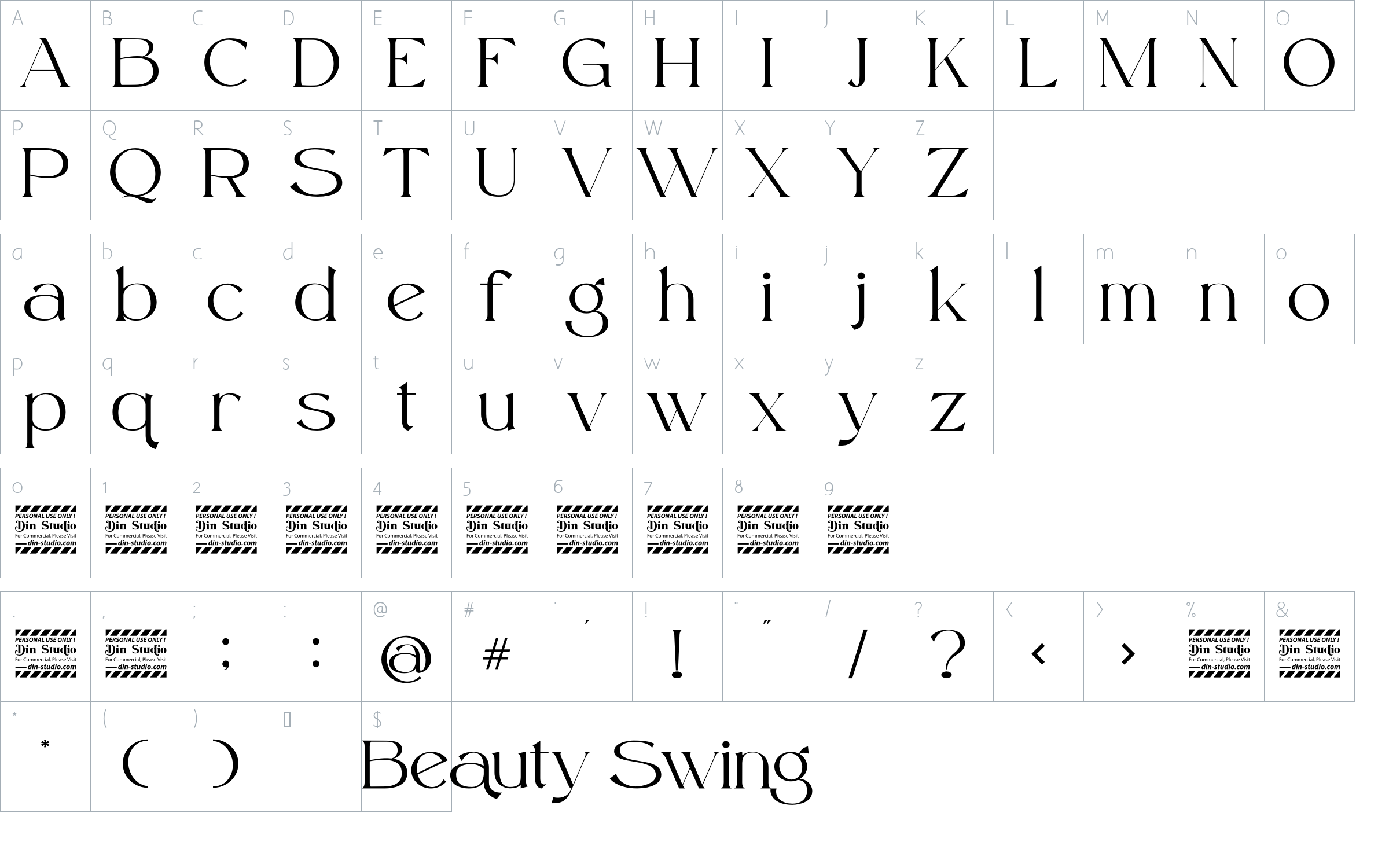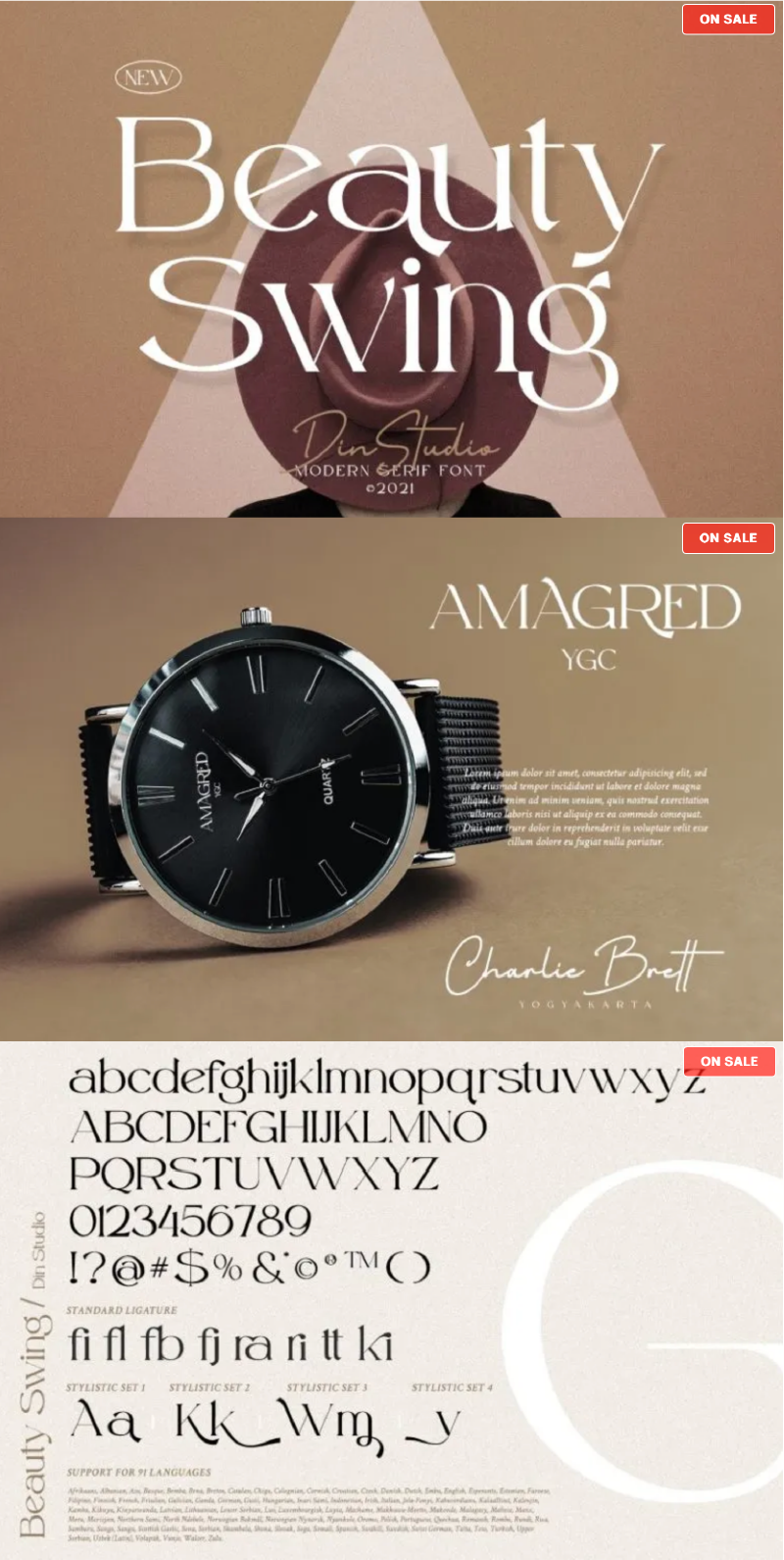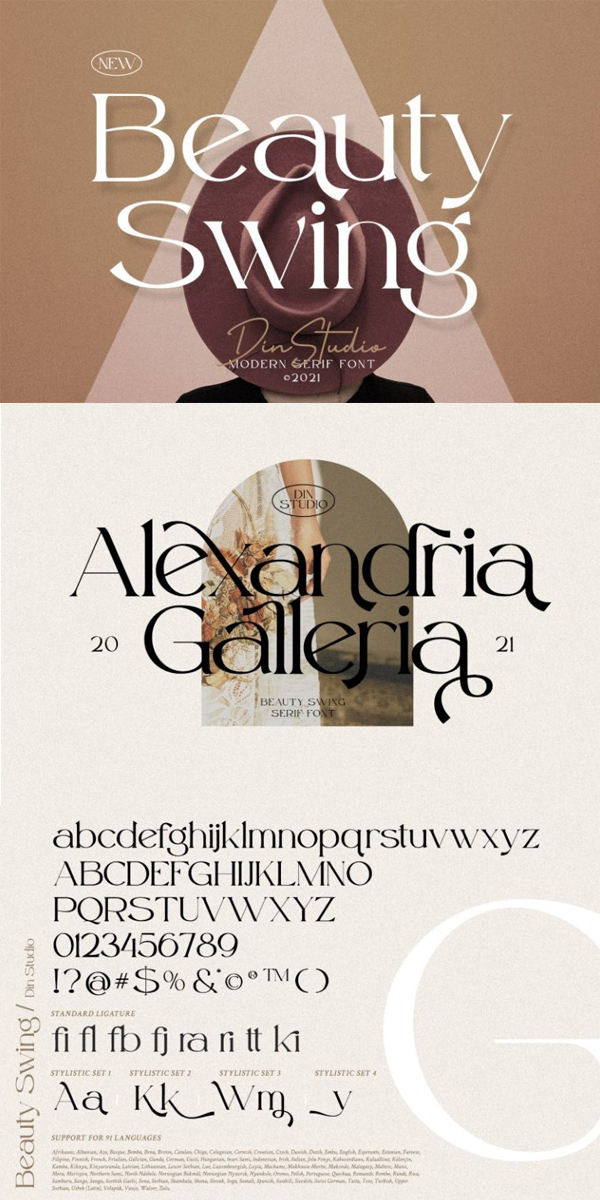
Beauty Swing Font
About Beauty Swing
Introducing Beauty Swing – A Serif Font.
A fabulous, elegant, and modern serif font engages your audience and makes your branding stand out. This stylish font can be used for a host of different content needs and projects and is perfect for social media branding projects, fashion designs, printed quotes, or even a stylish text overlaying any background images, and more.
Beauty Swing includes Multilingual Options to make your branding reach a global audience. See the previews above to get some inspiration on how you can use them.
-Standard Ligatures